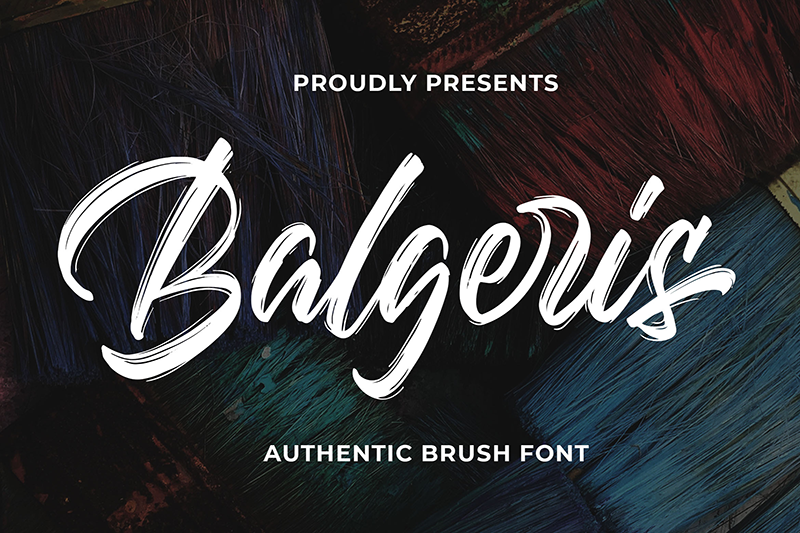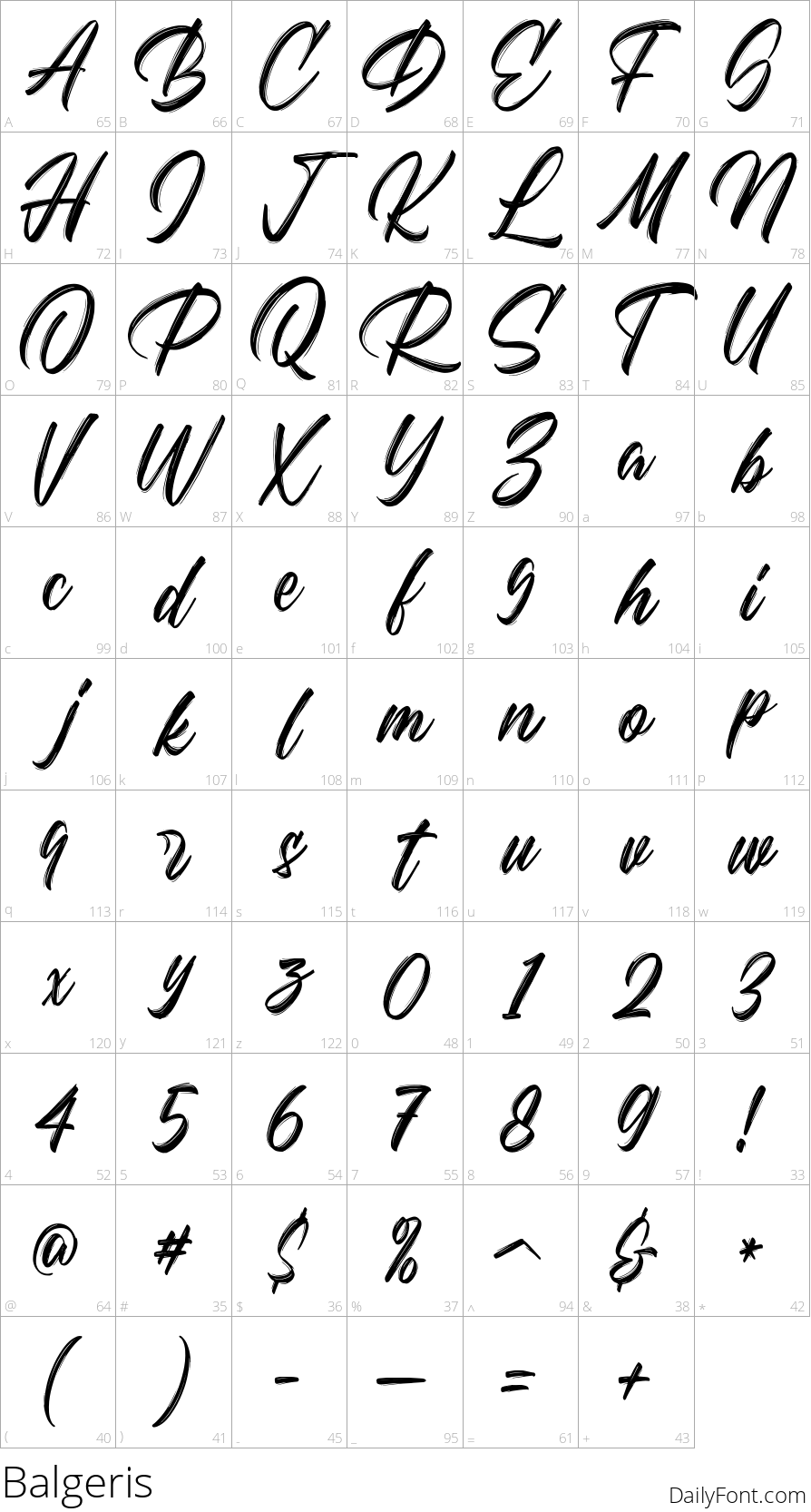
Balgeris
Balgeris is an exquisite typeface that draws inspiration from the elegant strokes of brush calligraphy. This unique font captures the artisanal quality of hand-lettered designs, making it perfect for a variety of crafting projects that demand a touch of personality and authenticity. Whether you're creating greeting cards, invitations, or digital artworks, Balgeris adds a warm, inviting feel to any text.
With its smooth curves and dynamic lines, Balgeris not only enhances the visual appeal of your designs but also improves user engagement. This font invites attention and resonates with audiences looking for a more personalized approach in digital and print media. Its versatility allows it to seamlessly integrate with a wide range of styles, ensuring that your project stands out from the crowd. Elevate your creative endeavors with Balgeris, the ideal font for artists and crafters alike who wish to leave a lasting impression.